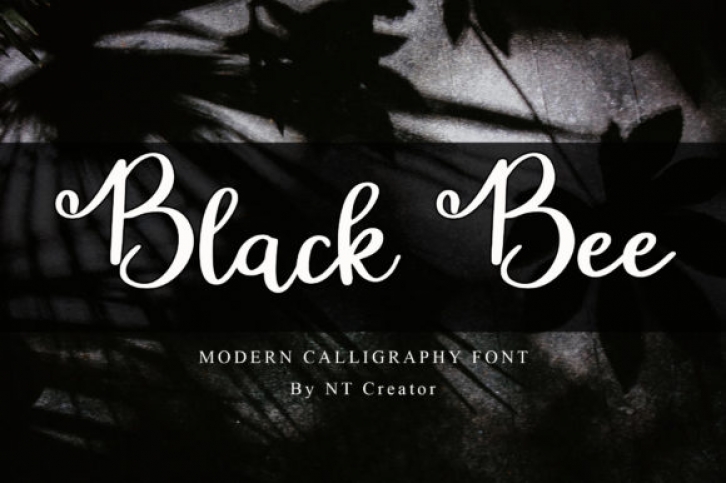
Black Bee is a lovely and timeless handwritten font. It is the best choice for creating eye catching logos, branding and quotes. Every letter has a unique and beautiful touch, which will make your design come alive!